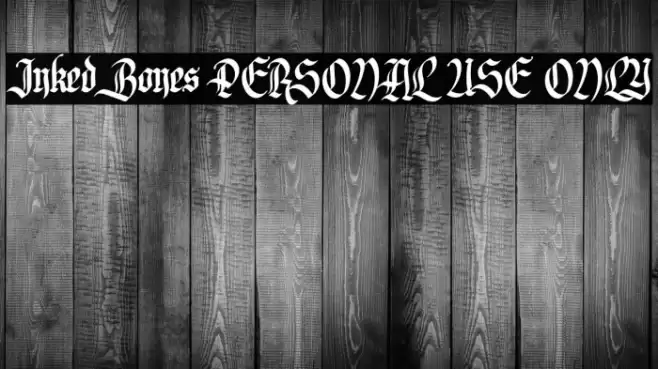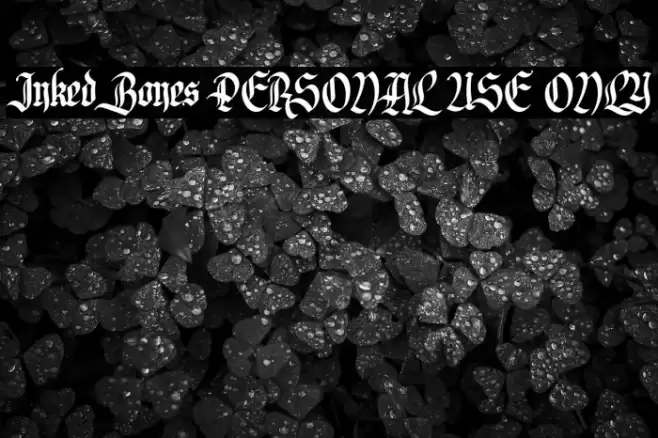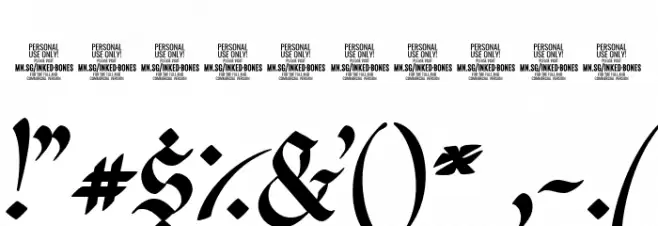
Inked Bones PERSONAL USE ONLY Font
Inked Bones PERSONAL USE ONLY Description
This font exhibits a bold and dramatic Blackletter style, characterized by its intricate and angular letterforms. The uppercase letters are ornate, with sharp edges and elaborate flourishes, while the lowercase letters maintain a consistent style, offering a cohesive look throughout. The font's design is reminiscent of medieval script, often associated with historical documents and traditional European aesthetics. The numerals and special characters are equally stylized, maintaining the overall theme of the font. This typeface is visually striking, making it suitable for projects that require a strong and impactful presence.
A bold and dramatic Blackletter font with intricate, angular letterforms from Regular fonts.
- Proposed Projects: Ideal for tattoo designs, gothic-themed posters, historical document recreations, and branding that requires a medieval or traditional European aesthetic.
- Overall Style: Vintage
- Use Case: Logos, Headlines, Decorative purposes